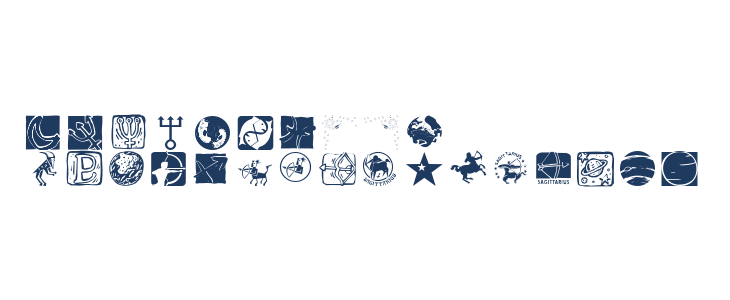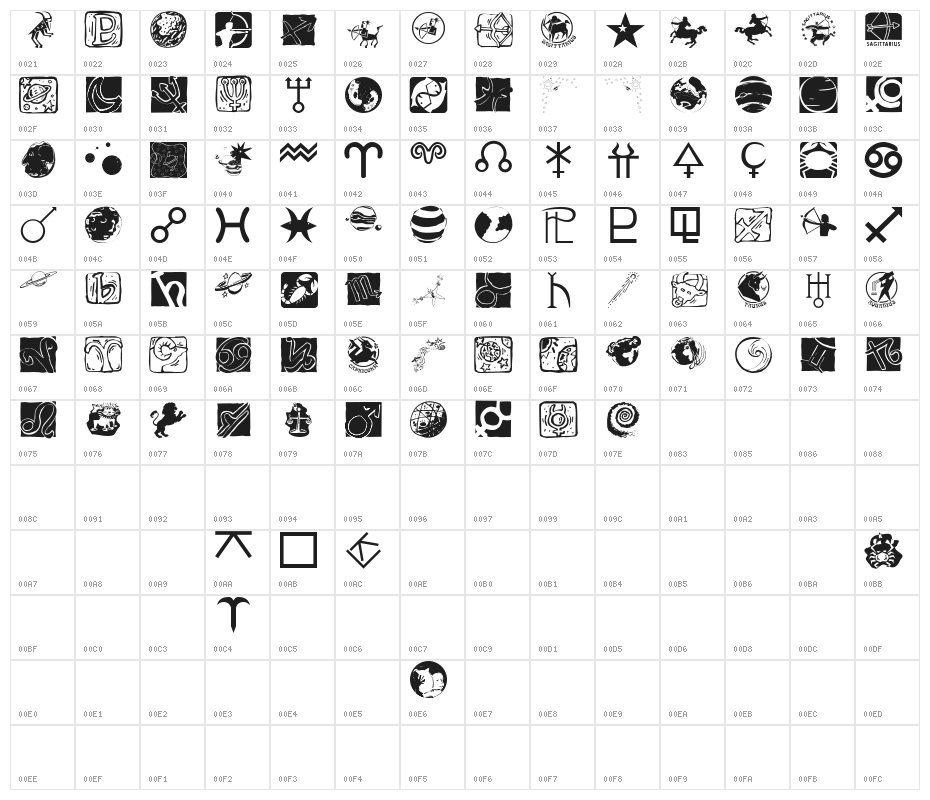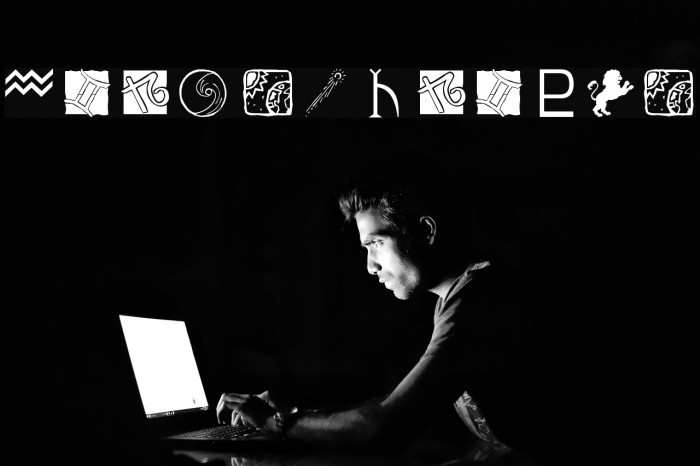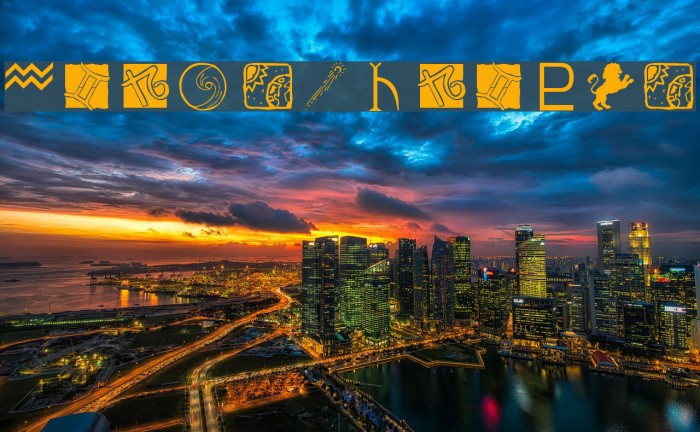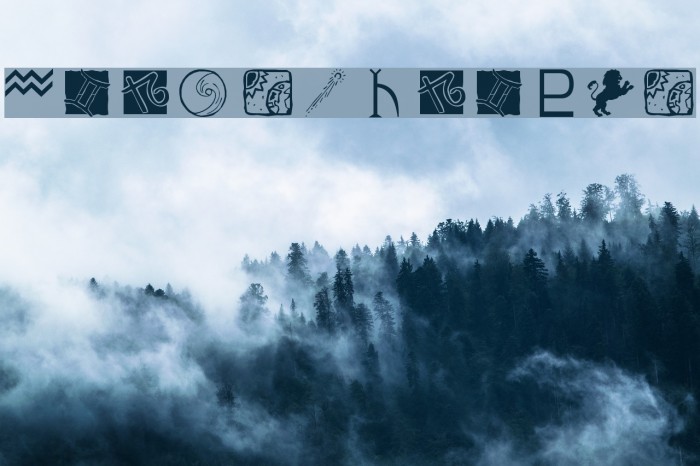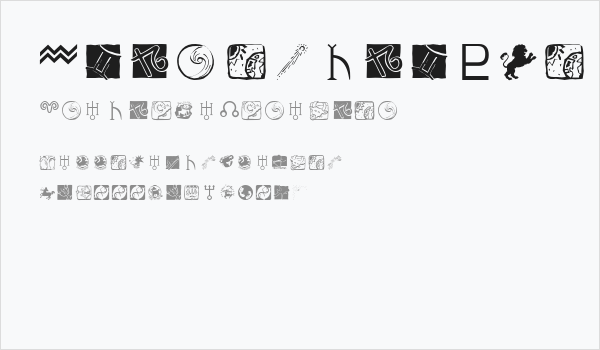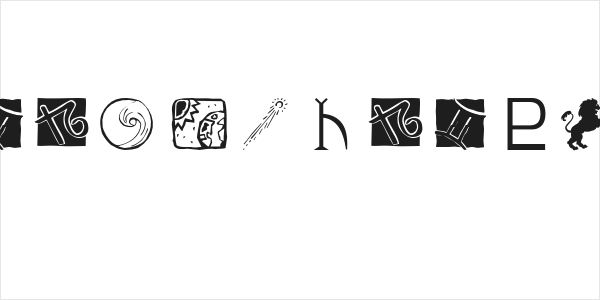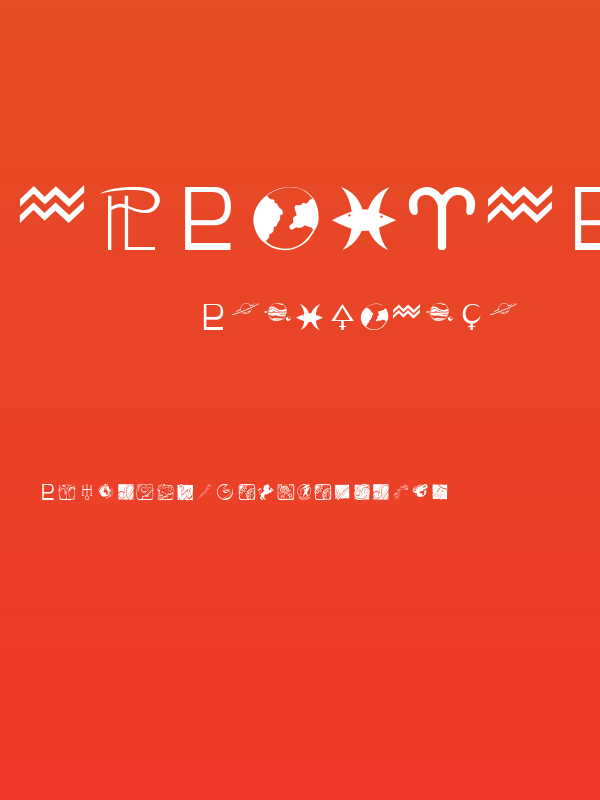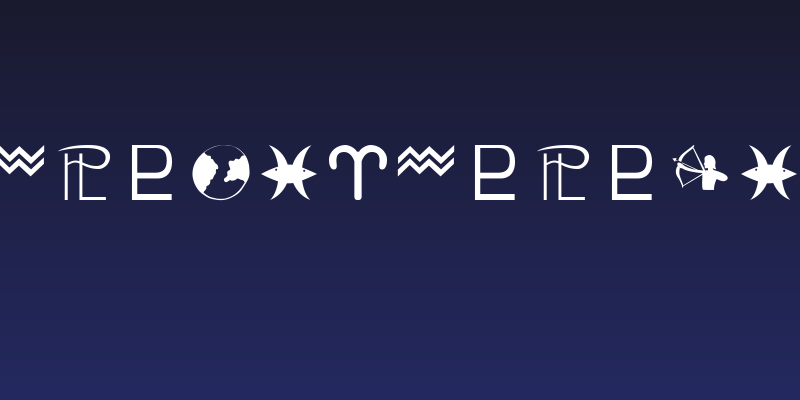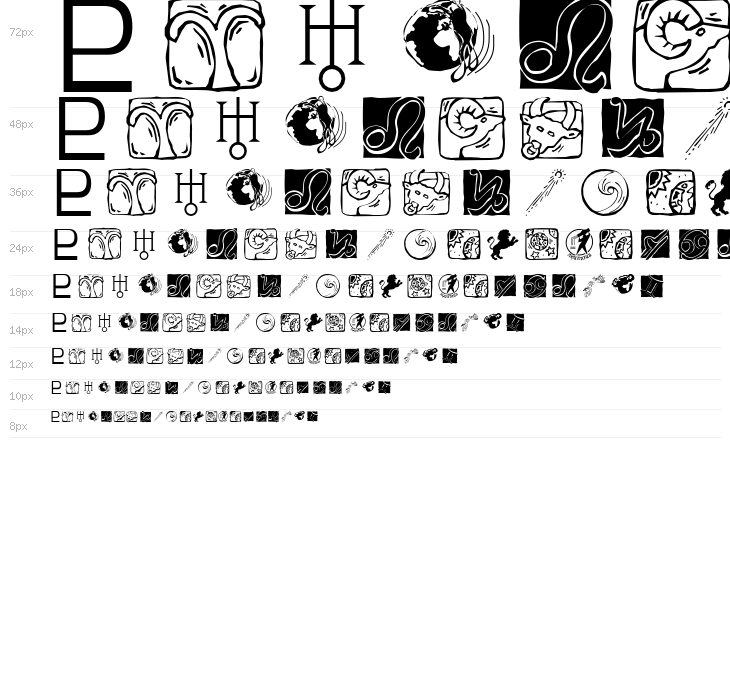
AstrobatsTwo Font
AstrobatsTwo Description
This collection features a series of astrological and planetary symbols, each intricately designed with unique patterns and motifs. The symbols are bold and decorative, capturing the essence of celestial themes. Each character is distinct, with some incorporating elements like stars, planets, and zodiac signs. The style is highly illustrative, making it suitable for projects that require a touch of mysticism or cosmic flair. The symbols are not uniform in shape, adding to their decorative appeal, and they exhibit a variety of line thicknesses and artistic embellishments.
| Proposed Projects | Ideal for astrology-themed designs, cosmic event posters, mystical branding, or educational materials about astronomy and astrology. |